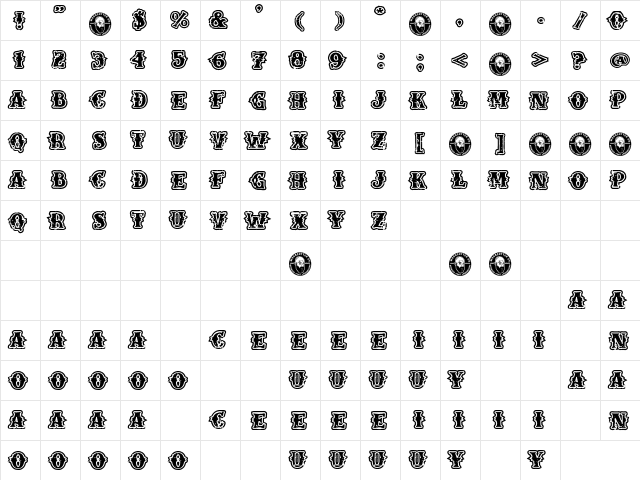
High Moon Regular
| Designer | Woodcutter Manero |
Design Context for High Moon Typeface
High Moon is a composed and adaptable typeface that performs quietly and consistently across a wide range of design contexts.